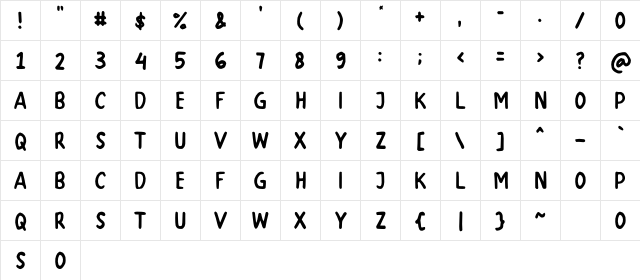
Super Regular
| Designer | Muhammad Husni Haikal |
Design Context for Super Typeface
Super is a composed and adaptable typeface that performs quietly and consistently across a wide range of design contexts.